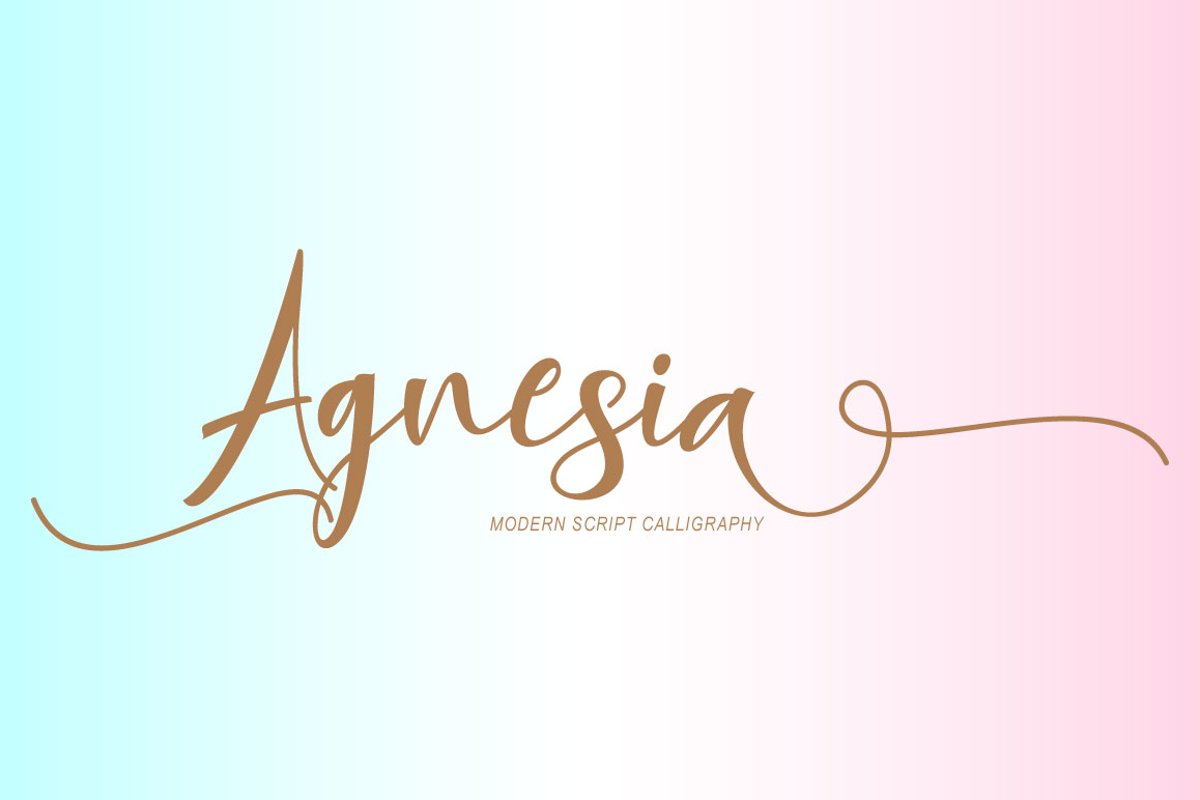
Agnesia Script
Agnesia
Introducing
Agnesia Script modern script  with a handmade calligraphy style, decorative characters and a dancing baseline! So beautiful on invitation like greeting cards, branding materials, business cards, quotes, posters, and more!!
Agnesia Script come with 492+ glyphs. The alternative characters were divided into several Open Type features such as Swash, Stylistic Sets, Stylistic Alternates, and Ligature. The Open Type features can be accessed by using Open Type savvy programs such as Adobe Illustrator, Adobe InDesign, Adobe Photoshop Corel Draw X version, And Microsoft Word. And this Font has given PUA unicode (specially coded fonts). so that all the alternate characters can easily be accessed in full by a craftsman or designer.
Agnesia Script Features :
Uppercase & Lowercase International Languange & Symbols Support Punctuation & Number PUA Unicode Range Standard Ligatures Discretionary Ligatures Stylistic Alternates Stylistic Set 1-13: